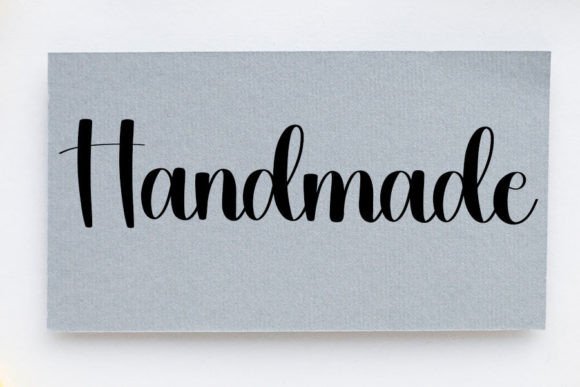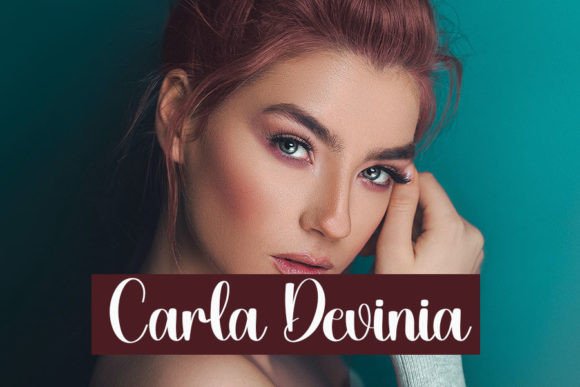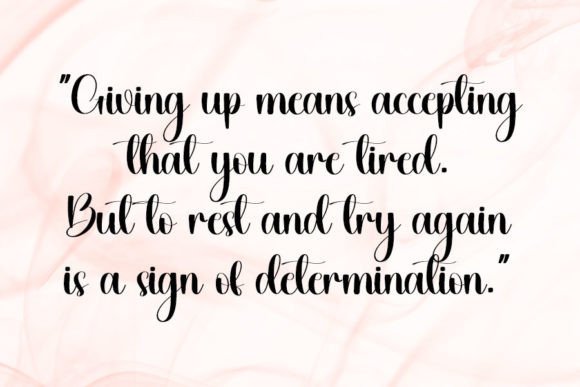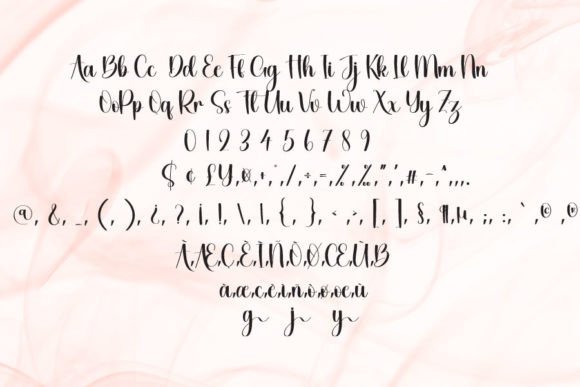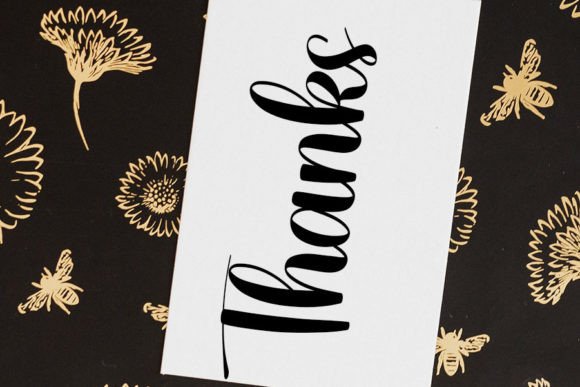
Introduction to Smoky Font
As I sat at my desk, staring at a blank piece of paper, trying to come up with the perfect design for my sister’s birthday card, I couldn’t help but feel a sense of creative frustration. I had the idea, but the execution was lacking. That’s when I remembered a little trick I had up my sleeve – the Smoky Font. With its friendly, handwritten style, this font is perfect for adding a personal touch to any creative project.
Whether you’re a seasoned designer or just starting out, the Smoky Font is a valuable resource that can elevate your designs to the next level. Its high-quality, transparent background makes it easy to use and customize, and the free download option is a bonus for those on a budget. In this article, we’ll take a closer look at what makes the Smoky Font so special and how you can use it to take your designs to new heights.
- High-quality, vector-based font design, ideal for creative projects and design resources.
- Smoky Font’s unique, smoky texture adds a touch of sophistication and elegance to any design, making it a valuable design resource.
Honest Review: Smoky Font
I recently stumbled upon the Smoky Font and I must say, it’s been a great addition to my design resource library. The Smoky Font is a unique and versatile font that can elevate any creative project.
- High-quality design: The Smoky Font has a very smooth and professional look, making it perfect for printing or digital use.
What doesn’t work well:
- ⚠️ Limited font styles: The Smoky Font only comes in a few font styles, which might limit its versatility for some designers.
- ⚠️ Not suitable for all designs: The Smoky Font’s unique design might not be suitable for all types of creative projects, such as children’s books or formal documents.
Overall, I’m impressed with the Smoky Font and would definitely recommend it to designers looking for a unique and high-quality font for their creative projects.
The Smoky Font is ideal for a variety of creative projects, including social media graphics, flyers, logos, and brochures. Its unique style and transparent background feature make it a great choice for designers looking to add a touch of sophistication to their designs.
To get the most out of the Smoky Font, experiment with different font sizes and styles to find the perfect combination for your design. You can also pair it with other fonts to create a unique and eye-catching design.